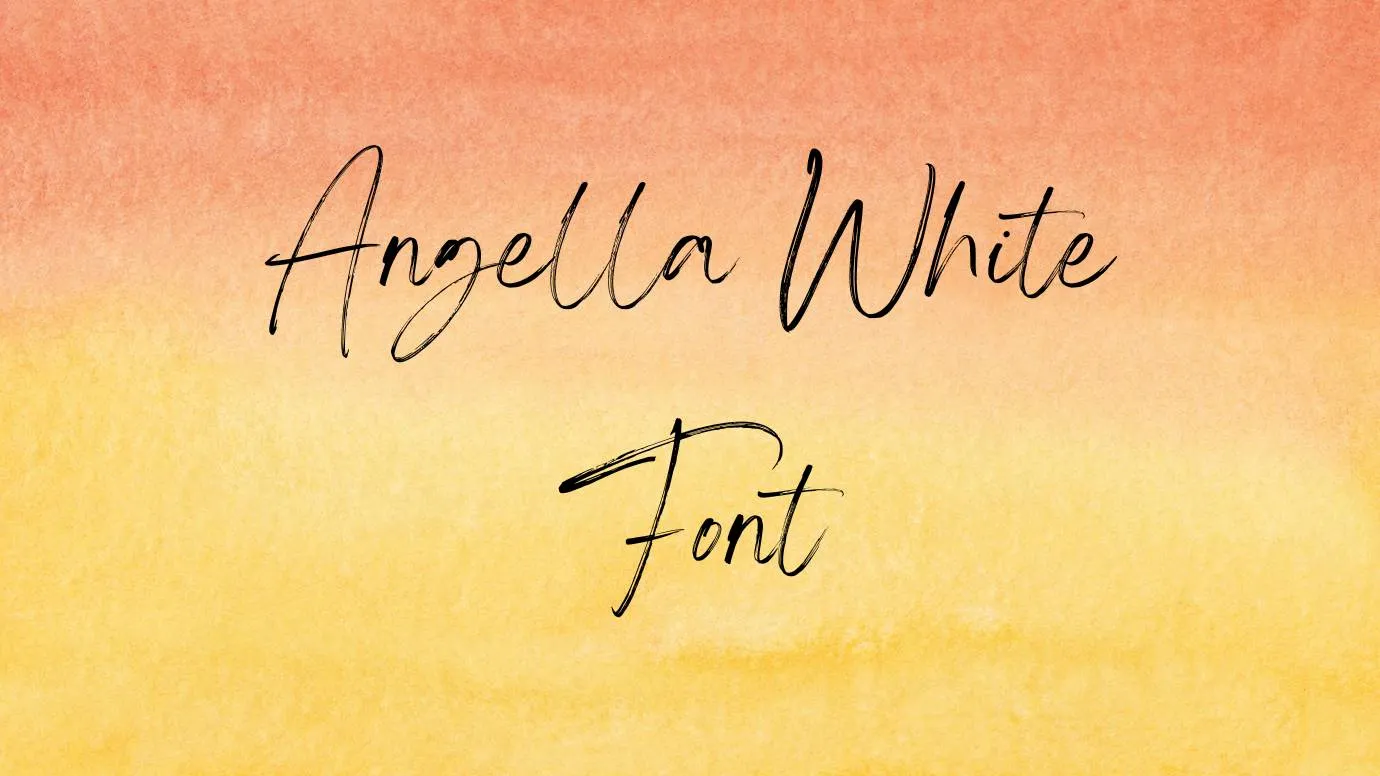
Angella White Font Family is a famous brush font that comes in a hand-drawn brushy look. This font was released for the first time by Din Studio. It has rough and italic strokes that are increasing the uniqueness of this font.
Its handcrafted bold characters are suitable for standard headlines and stylish text design purposes. This font got huge fame in the brush fonts list due to its unique lettering.
Angella White Font